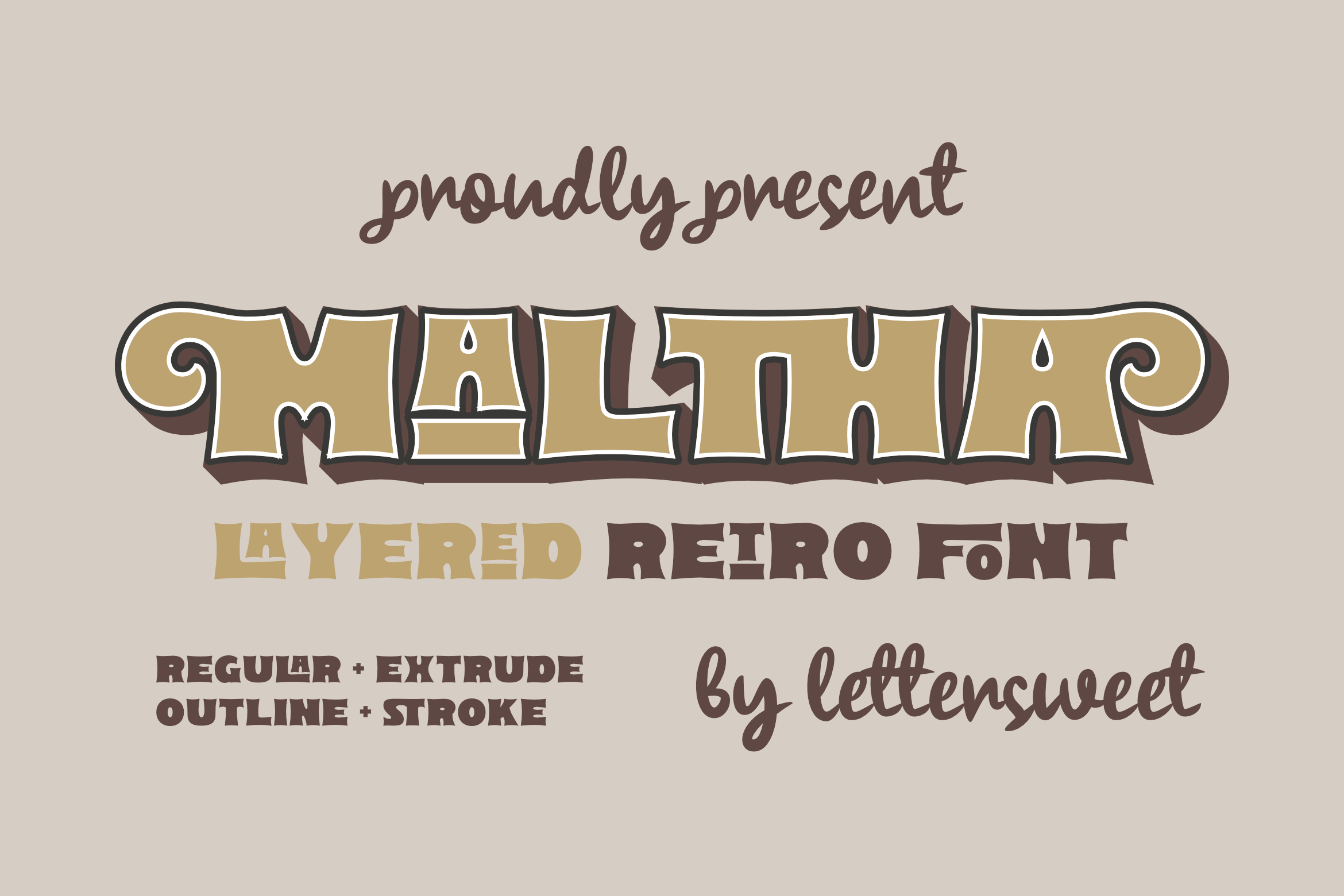
Maltha - Layered Retro Font
About Maltha - Layered Retro
Take a nostalgic journey with the Maltha font, a robust, retro-inspired serif display typeface. This assortment includes four distinct variations: regular, italic, and shadow version. Effortlessly infuse a bygone-era vibe into your design concepts with Maltha. From logos and stickers to package designs and Cricut projects, the bold lines and curves of Maltha navigate beautifully. It effortlessly lends itself to headlines, brand identities, and even t-shirt or apparel design. Make your posters pop, book covers resonate, and magazines mesmerize. Elevate your digital platforms, including YouTube, Instagram, and websites, with this chic, vintage font.